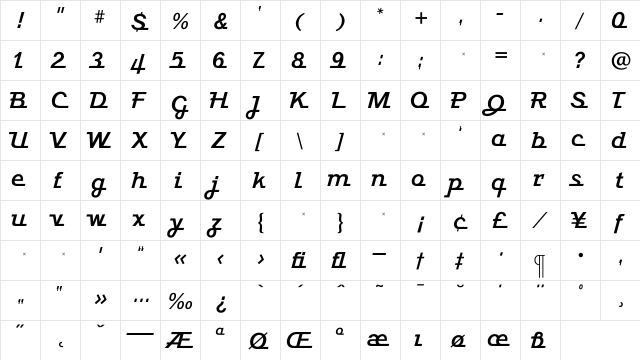
JavelinBold Regular
Design Context for JavelinBold Typeface
JavelinBold offers clean, dependable letterforms without strong stylistic allegiance, making it a practical choice for designers who need flexibility. The heavy weight commands attention and anchors typographic hierarchies.